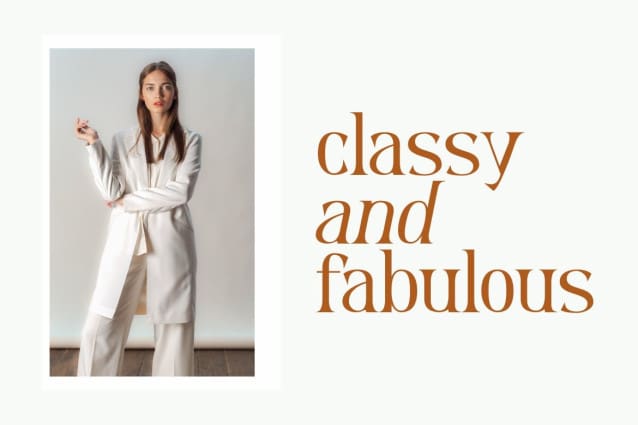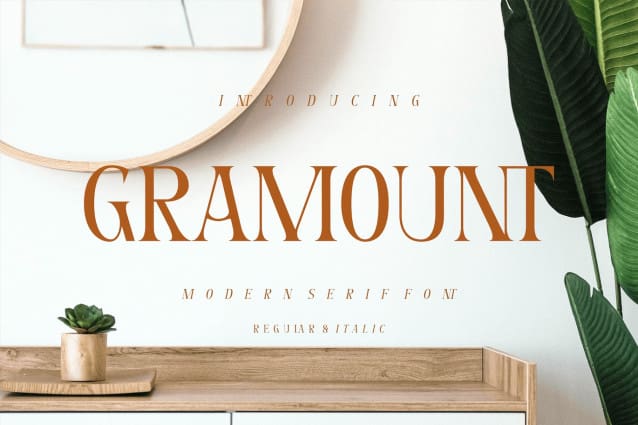
Gramounth Font
Gramounth Font is a modern and elegant Serif font that we designed with an original touch to suit your needs. This cool font is complete with uppercase, lowercase, numbers and symbols. This very strong and sharp font is perfect for headlines, typography, posters, magazines, brochures, packaging, websites and much more for your design needs, to make your designs look cooler